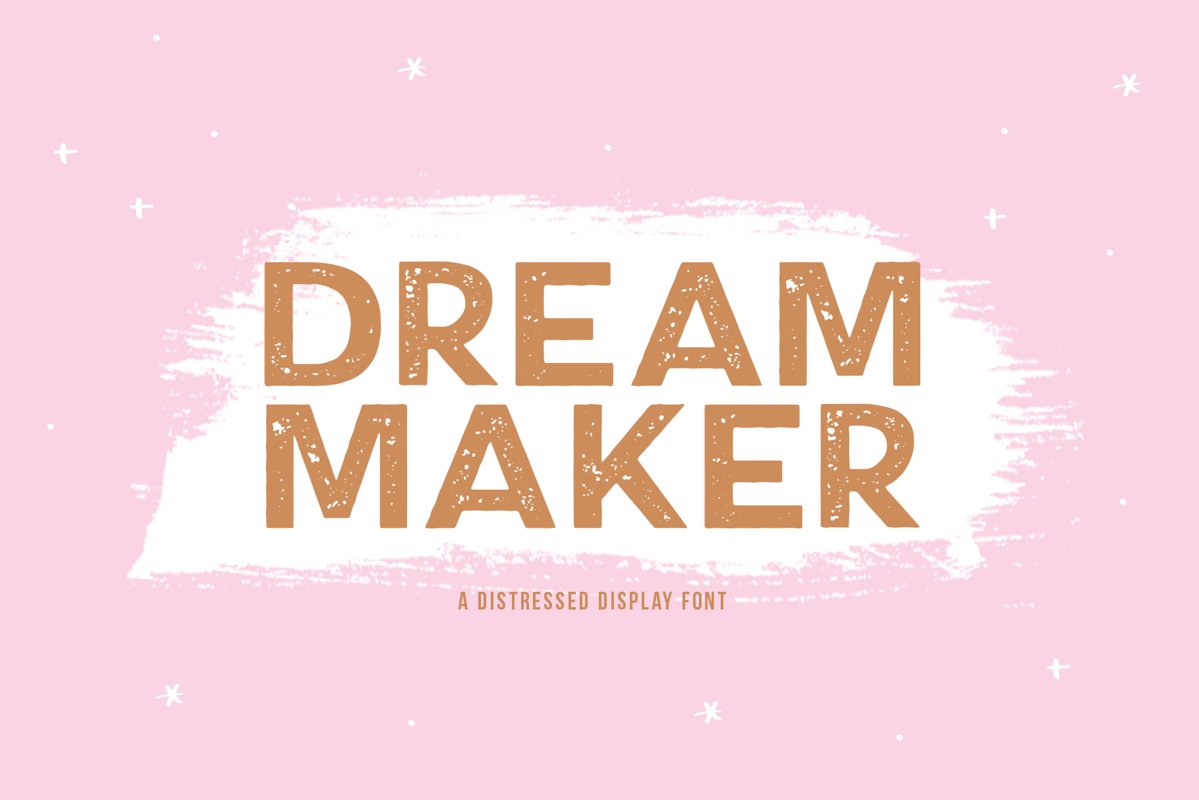
Dream Maker - A Distressed Font
Dream Maker
Dream Maker is a distressed font with a grunge look!
This is an all caps font.
Most accent characters included.